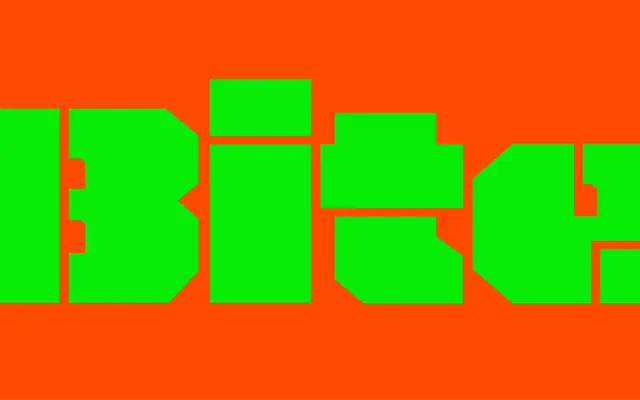
Bite
Leinster Type · Troy Leinster · 2025
An octagonal display face by Troy Leinster built for heavy-industry and action-sports branding, offered in solid and stencil cuts.
Four styles cover Upright, Oblique, Stencil and Stencil Oblique, with the solid and stencil variants designed to work together as a flexible identity system. The letterforms draw on industrial signage and military stencils, with a broad surface area suited to scale and extreme environments. OpenType features include stylistic alternates, discretionary ligatures, capital punctuation and arrows.
Octagonal, heavy letterforms derived from industrial signage and military stencil traditions place this firmly in display; the geometric construction and stencil variants distinguish it from standard grotesque or gothic categories.